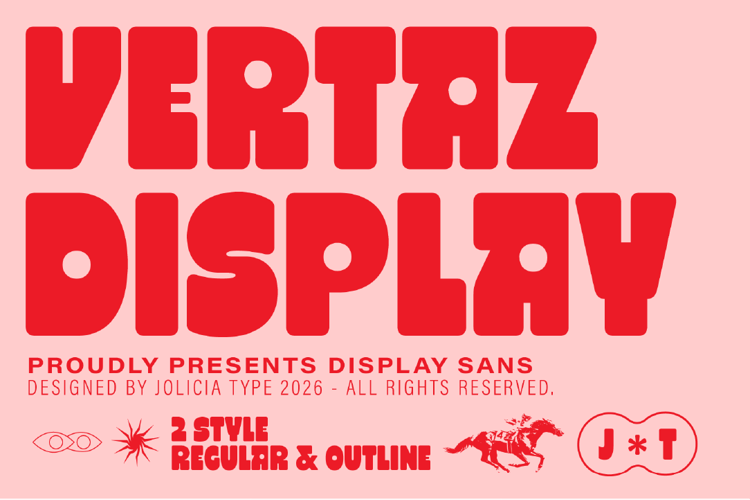
Vertaz Display Regular Font
Vertaz Display is a bold and chunky display font designed to
make a statement. Featuring oversized proportions, rounded
corners, and distinctive geometric cuts, Vertaz delivers a playful
yet powerful visual character. Available in Regular and Outline
styles, it offers versatile options for bold headlines, branding,
posters, packaging, apparel, signage, logos, and experimental
graphic design. Perfect for designers seeking expressive,
impactful, and unconventional typography with a strong
contemporary personality.